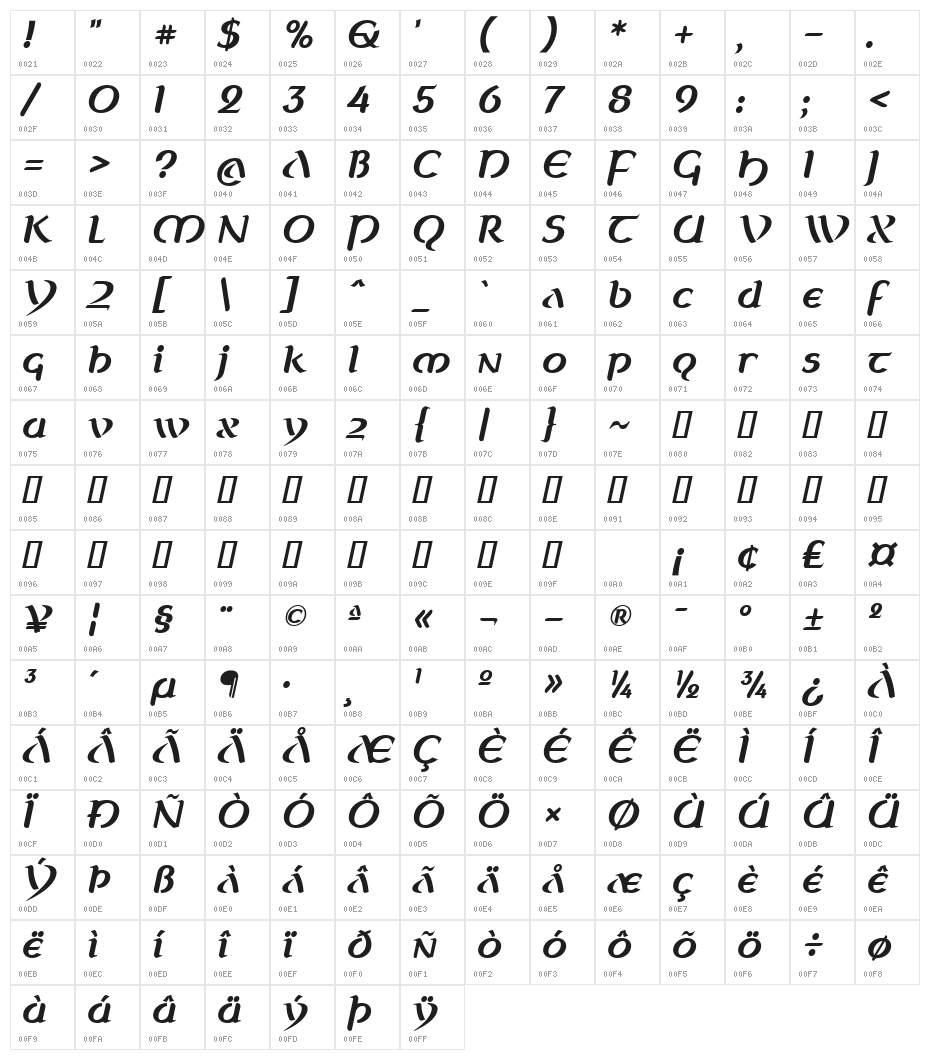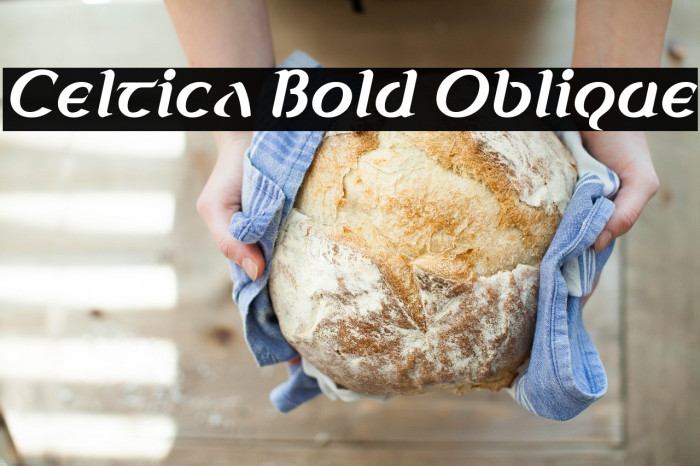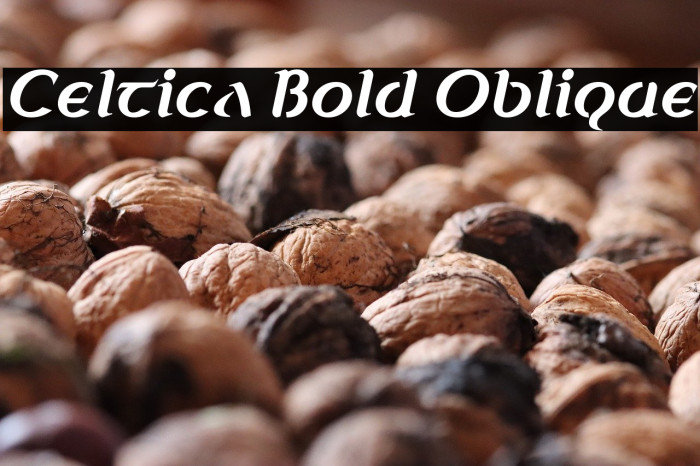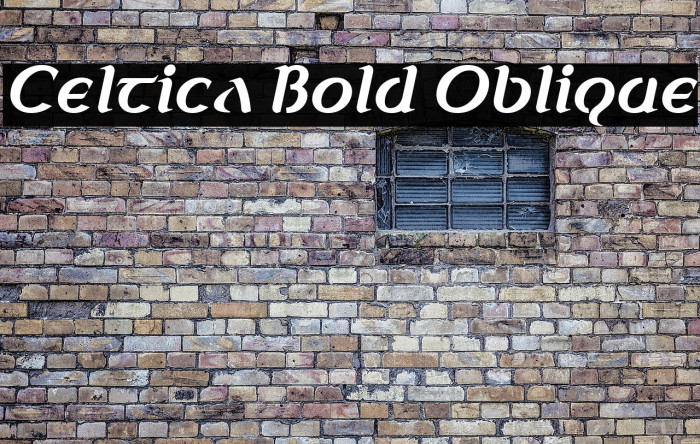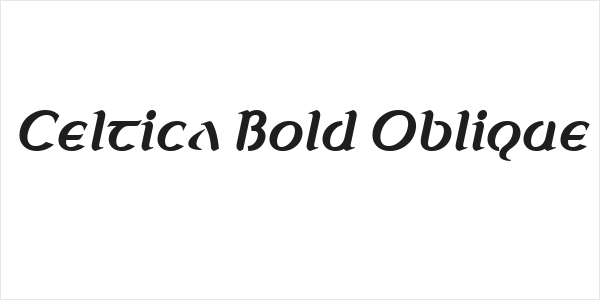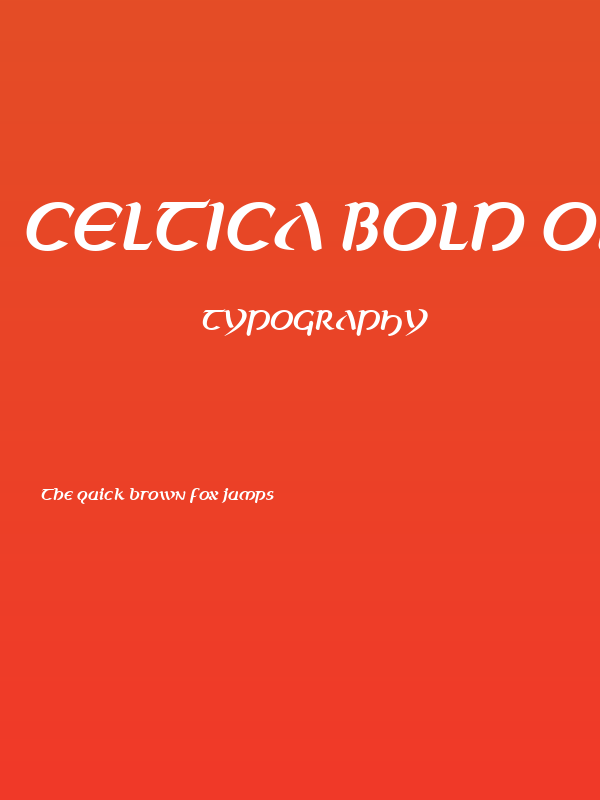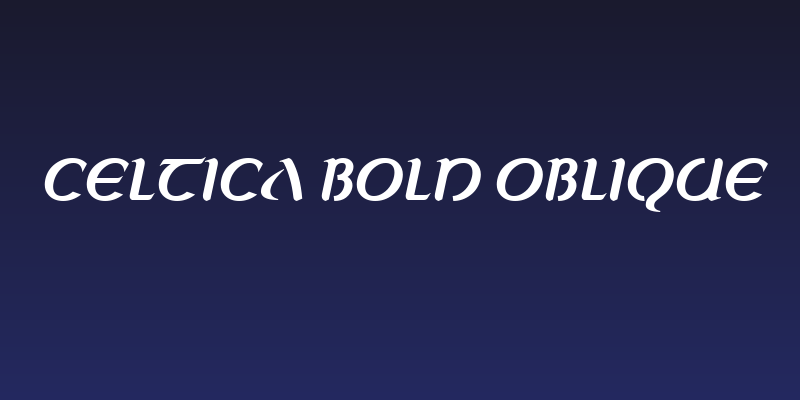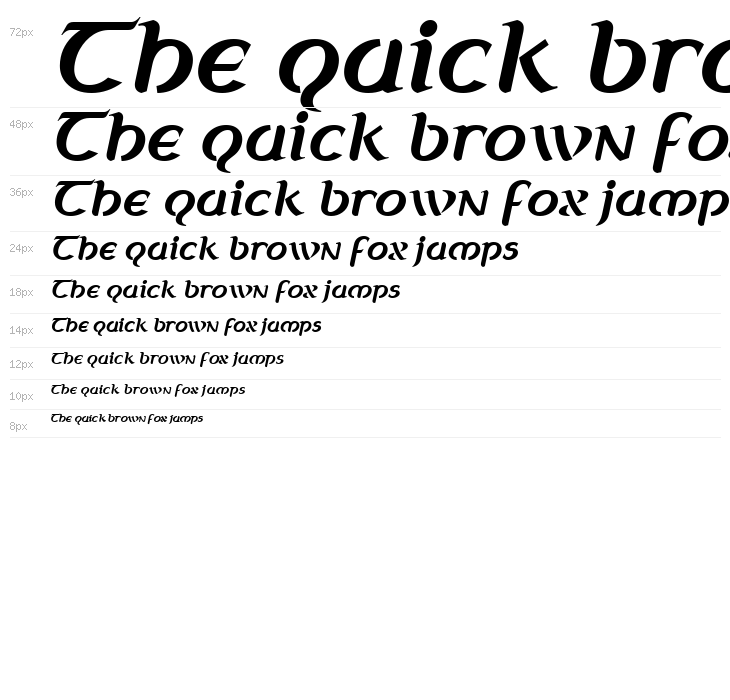
Celtica Bold Oblique Font
Celtica Bold Oblique Description
This font features a bold and oblique style with a distinct Celtic influence. The characters are elegantly curved with sharp, angular serifs that give a sense of movement and flow. The uppercase letters are particularly striking, with a unique flair that makes them stand out. The lowercase letters maintain the same stylistic elements, ensuring consistency throughout. Numbers and special characters are designed with the same attention to detail, making them visually cohesive with the rest of the font. The overall appearance is both traditional and dynamic, suitable for projects that require a touch of historical elegance.
| Use Case | Logos, Headlines, Branding |
| Proposed Projects | Ideal for use in branding, logos, book covers, and any project that requires a historical or Celtic theme. |